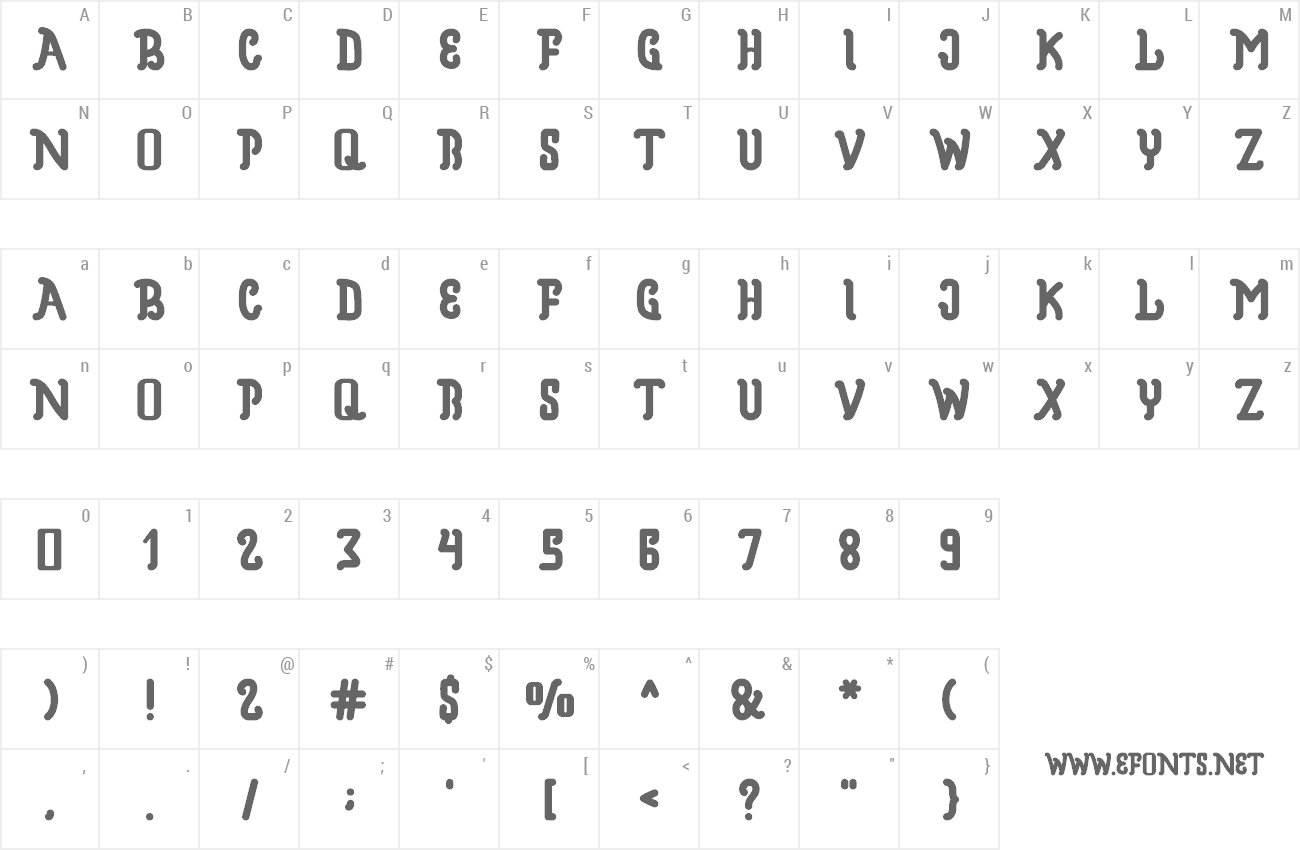
| Font name: | Believer |
| Author: | Sixtwenty Studio |
FULL VERSION HERE: https://www.creativefabrica.com/product/believer-3/ref/238133/ Believer is a bold, round and soft themed display font. Believer is very suitable for posters, t-shirts, book covers, packaging, stickers, quots and all designs that require bold elements that are clearly strong and still look soft. What includes: - OTF Font File - TTF Font File - Works on PC & Mac - Simple installation - Accessible in Adobe Illustrator, Adobe Photoshop, Adobe InDesign, also works in Microsoft Word. - Can be accessed completely without additional design software. Thank you for your purchase! Hope you enjoy our font! ~ Sixtwenty Studio ~ |